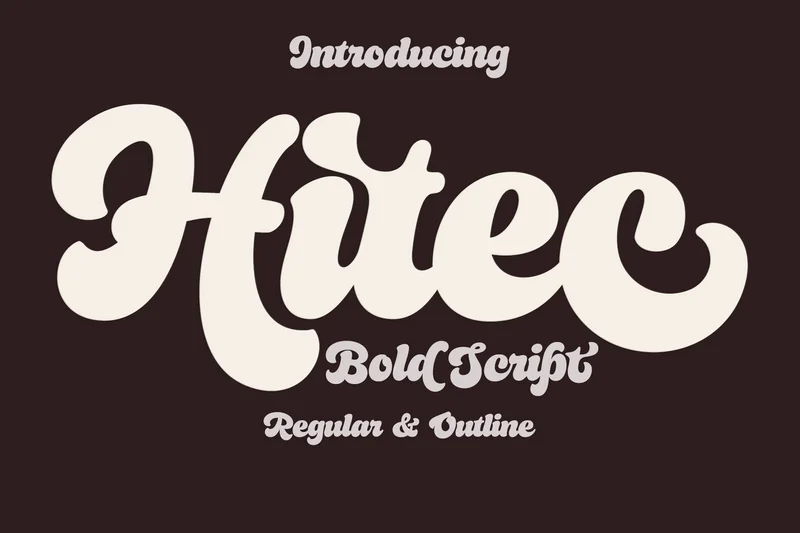
Hitec Script
Hitec Script This font comes in a bold version and is combined with rounded and outline. The author designed this collection of letters inspired by retro typography designs on posters from the 80s, which were so sturdy, unique and modern for their time. This font is very suitable to complement your next design, such as branding, product templates, vintage designs, wall art, and more. Let’s play around with these slightly unique letters to beautify your next product design.